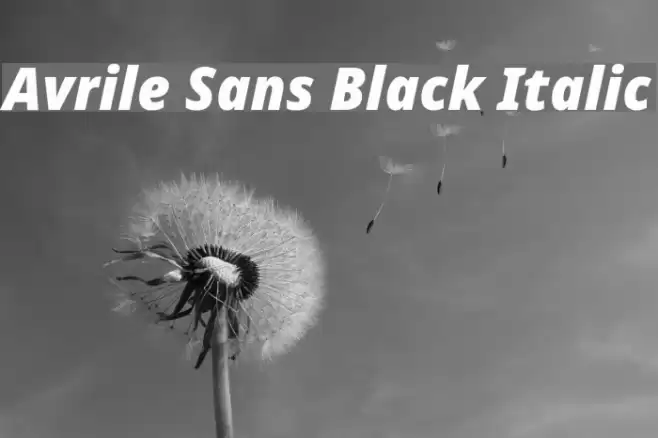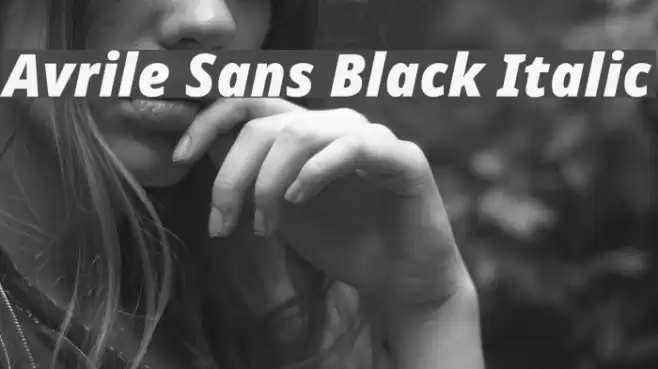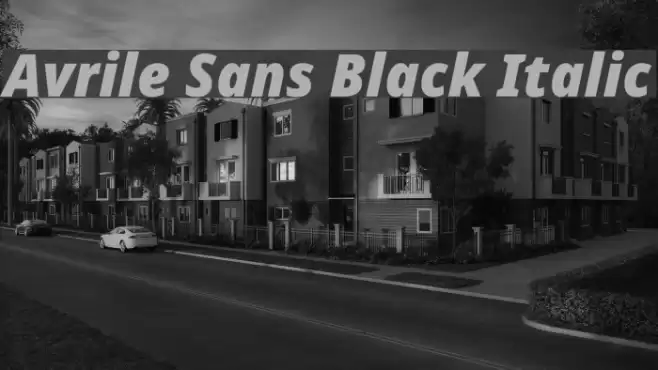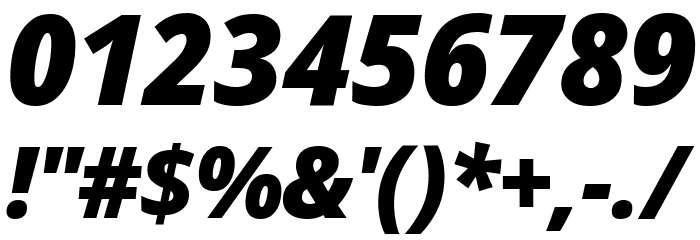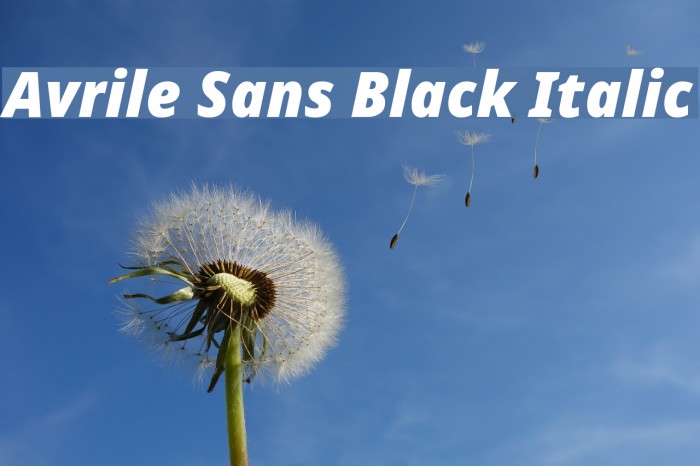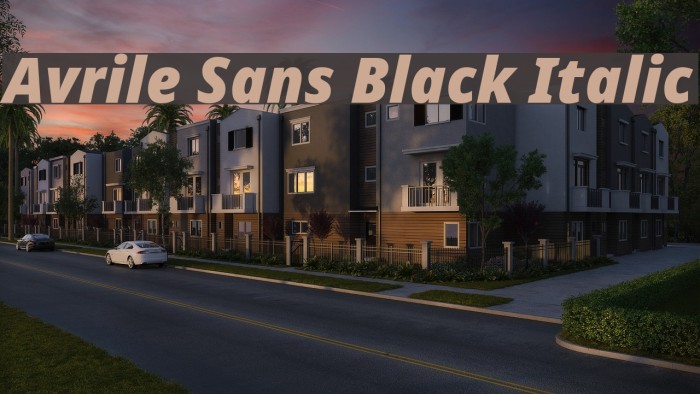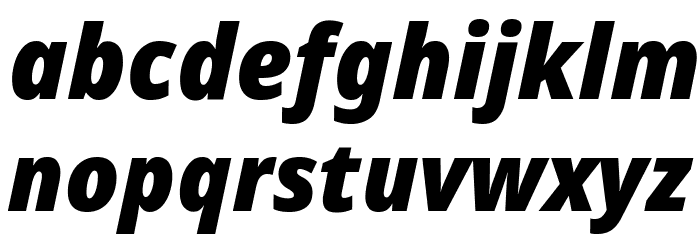
Avrile Sans Black Italic Font
Avrile Sans Black Italic Description
This font exhibits a bold and dynamic presence with its thick, slanted characters that convey a sense of urgency and modernity. The uppercase and lowercase letters maintain a consistent weight, enhancing readability while adding a touch of elegance. The numerals are robust and clear, making them suitable for various applications. Special characters are well-defined, ensuring versatility in design projects. The overall style is contemporary, with a slight italic slant that adds movement and energy to the text.
A bold, italic sans-serif font with a modern and dynamic style from Uncategorized fonts.
- Proposed Projects: Ideal for branding, advertising, headlines, and digital media where a strong, modern impression is desired.
- Use Case: Headlines, Logos, Advertising